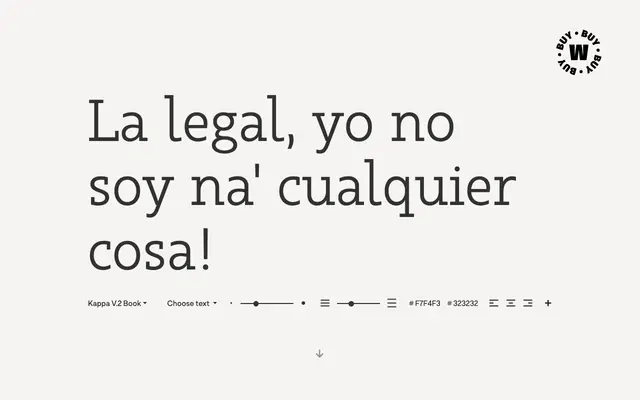
Kappa V.2
W Type Foundry · Salvador Rodriguez
A serif companion to the Kappa sans family, sharing its slightly narrowed proportions and tall ascenders across 36 styles split between text and display subfamilies.
Designed by Salvador Rodriguez, Kappa V.2 is the serif counterpart to Kappa sans, built with a subtly condensed structure and prominent ascender height that makes it adaptable across print and screen contexts. The family spans nine weights from Thin to Ultrablack with matching italics, repeated across text and display subfamilies for a total of 36 styles. OpenType features include alternates, ligatures, fractions, small caps and extended language support.
A serif companion to the Kappa sans family, sharing its slightly narrowed structure and tall ascenders, designed for both text and display use.